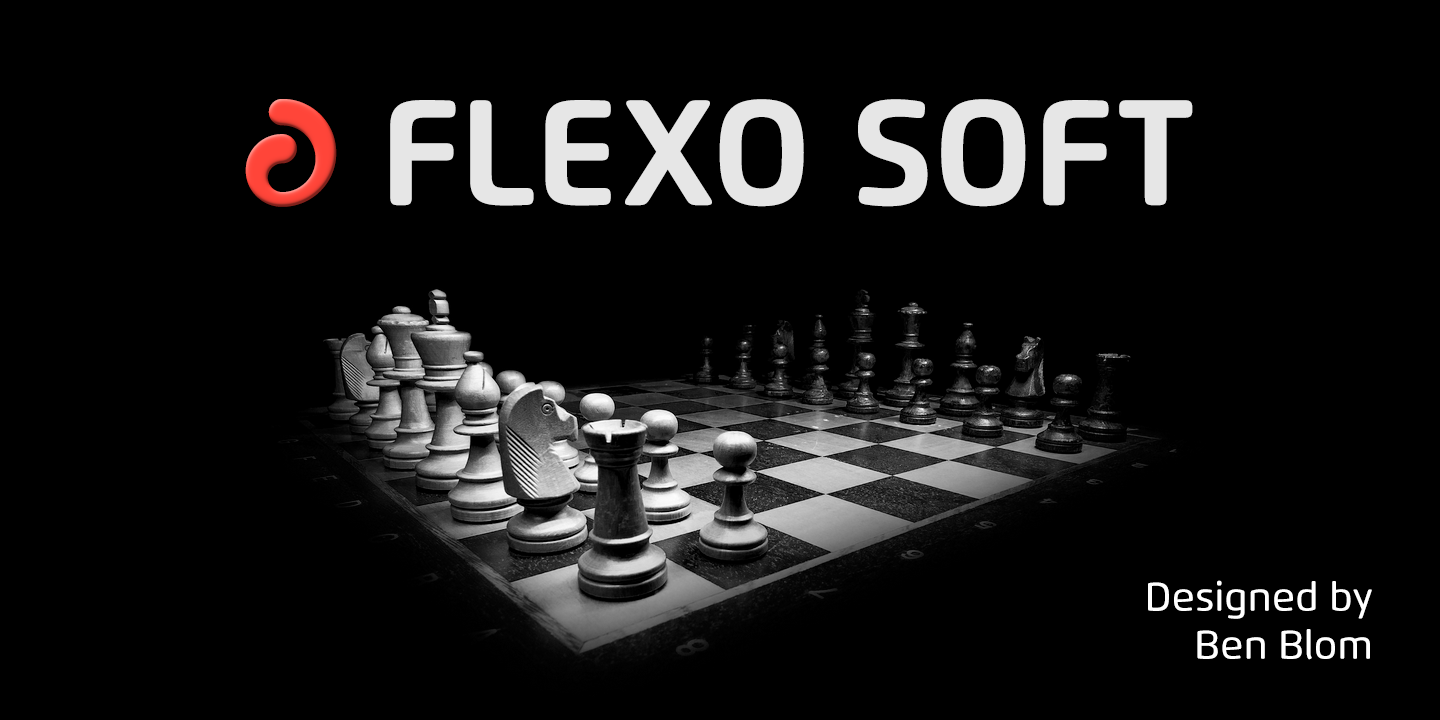
Flexo Soft Font is perfect for gentle baby product packaging, soft skincare brand designs, comfortable bedding company logos, flexible yoga studio signage, adaptive wellness center materials, gentle therapy practice branding, soft comfort food packaging, flexible fitness program designs, gentle care service communications, and approachable healthcare branding that requires soft adaptability and comfortable flexibility.
This font is exciting because it masterfully combines structural flexibility with gentle softness, featuring adaptable letterforms that bend and flow like comfortable fabric while maintaining professional readability and warm approachability. Flexo Soft Font embodies the perfect balance of strength and gentleness, creating typography that feels both reliable and comforting for brands that prioritize user comfort and gentle experiences.
Flexo Soft Font family includes Regular, Bold, Light, Gentle, Flexible, Comfort, Adaptive, and Soft versions, plus comfort symbols, gentle ornaments, flexible design elements, and soft flourishes that enhance the approachable aesthetic and provide comprehensive solutions for comfort and wellness applications.
For comfort-focused and wellness design projects, Flexo Soft Font Free Download delivers unmatched gentle appeal and flexible sophistication. The font's soft letterforms and adaptable character make it perfect for wellness brands, comfort products, and gentle service providers seeking to communicate flexibility, comfort, and caring approach. Its gentle design appeals to audiences seeking comfortable, stress-free experiences and gentle solutions. The character set includes comfort alternates and gentle variations that enhance the soft brand experience. Professional designers appreciate its ability to convey both flexibility and reliability while maintaining excellent readability across wellness marketing, comfort branding, and gentle communications, making it essential for brands that want to project the soft strength and flexible comfort that defines exceptional user experiences and creates lasting customer comfort in today's demanding marketplace.